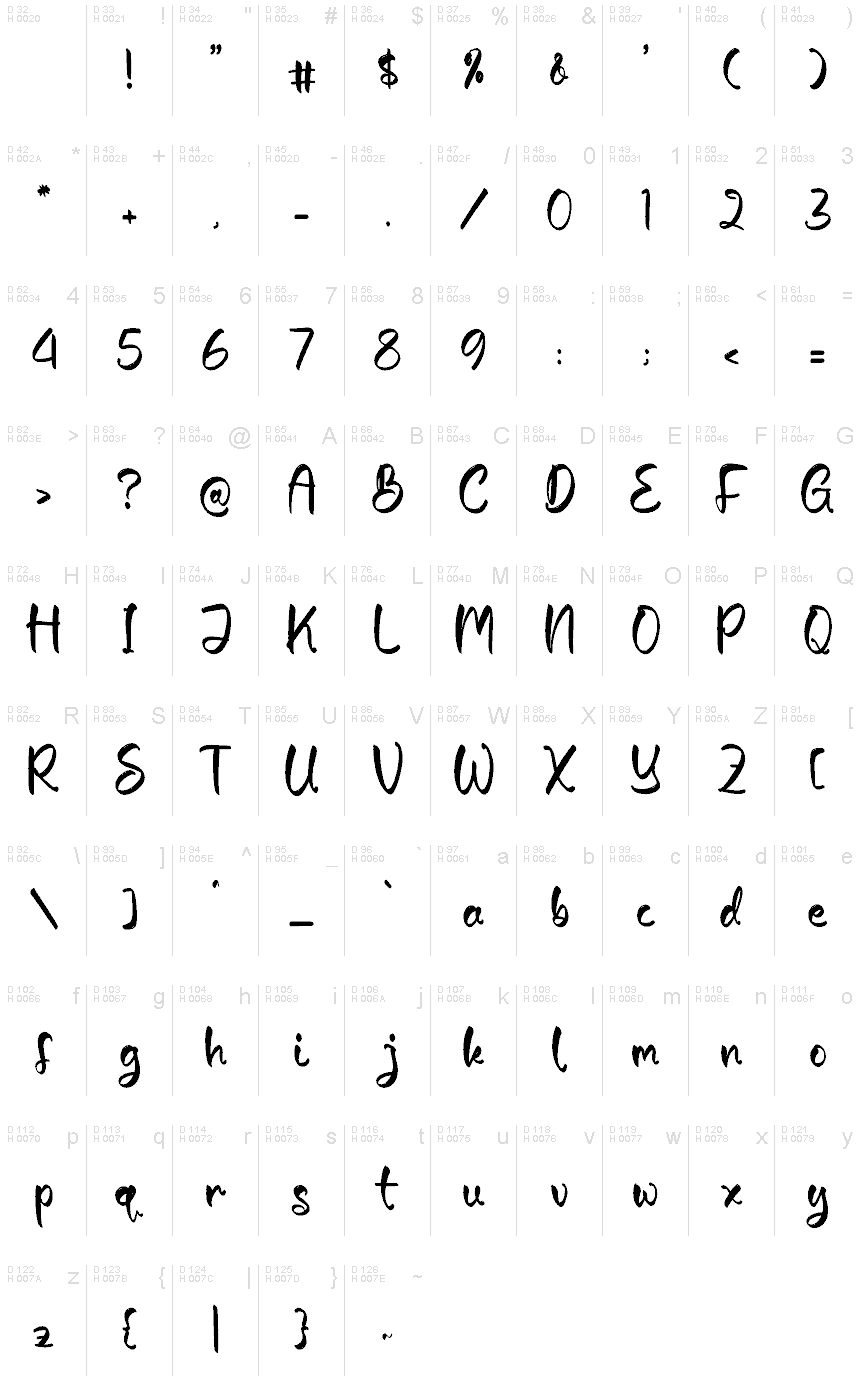
Gafstery
Gafstery font by Letterena Studios is a free handwritten font with a casual, friendly feel and brush-like texture. The typeface includes expressive curves and a modern aesthetic, resembling the fluidity of hand-drawn letterforms. It's simple, elegant, yet distinctive enough to complete any design project that requires elegance.
Use Gafstery for headings in magazines, book covers for children’s books, tees print designs, video game designs, movie titles (especially animation), brand logos and corporate identities. It also works well in invitation cards (including wedding invitations), business cards or stationery items such as letterhead or notebooks.